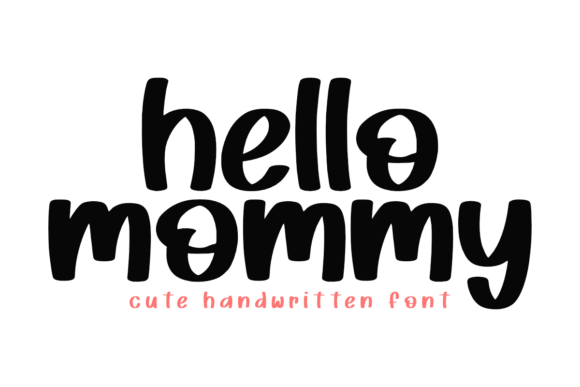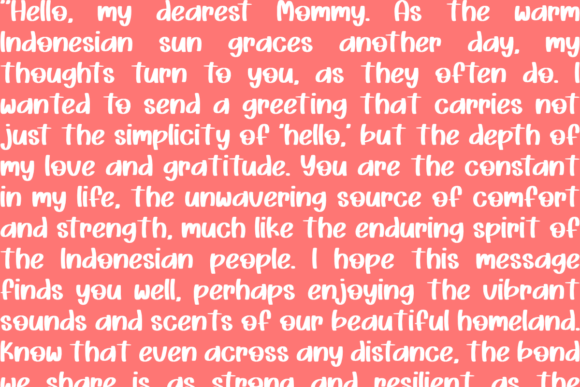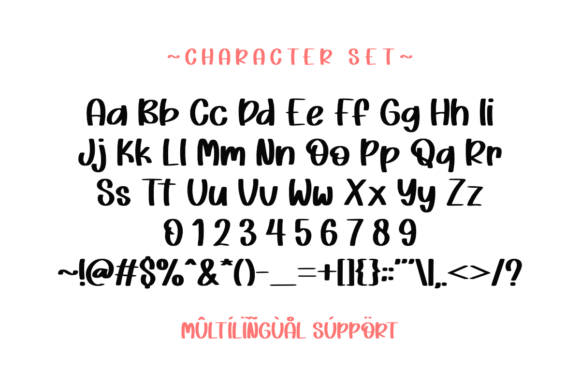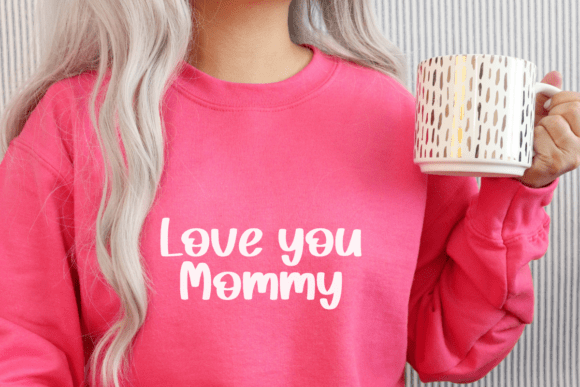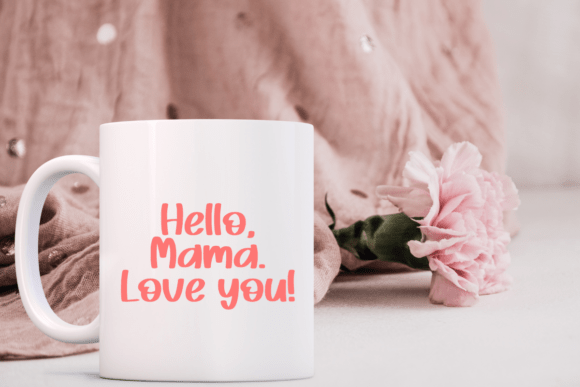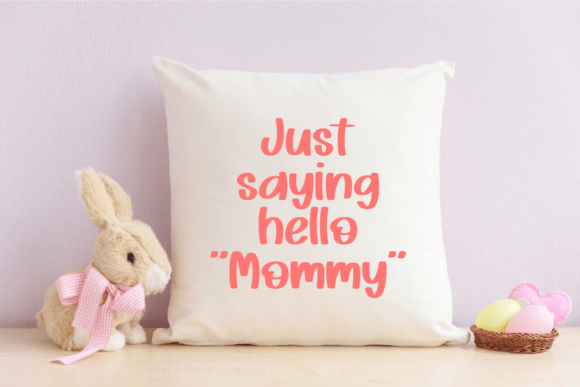
The Perfect Font to Express Your Love for Mom
Who hasn’t been there? You’re browsing through a font library, and suddenly, you stumble upon the perfect design that captures the essence of a special moment. For designers, it’s like finding a needle in a haystack – a discovery that can change the course of your project. That’s exactly what happened when I found the Hello Mommy Font. Its bold and lovable handwritten style immediately caught my attention, and I knew I had to share it with the world.
Hello Mommy Font is more than just a font – it’s a celebration of moms and all things cute. With its chunky curves and sweet style, it’s perfect for creating adorable designs that touch hearts. Whether you’re designing baby shower invites, mom blogs, or family-centered branding, this font is sure to make a lasting impression.
As a designer, you’ll appreciate the versatility of the Hello Mommy Font, which makes it a valuable addition to your font library. Its unique style and warmth can instantly elevate your designs and make them stand out from the crowd.
Hello Mommy Font Key Features
- Unique Characteristics: Hello Mommy Font features a playful, handwritten style with a mix of cursive and script elements, making it perfect for creating a personal and emotive feel in designs.
Hello Mommy Font Review
Overall, I think “Hello Mommy Font” is a solid choice for anyone looking for a fun, playful font. ✨ The unique blend of whimsical and modern elements makes it perfect for projects that need a bit of personality. I particularly enjoy how the font’s imperfections add to its charm.
Here are some specific things that work well:
- ✨ Unique style: The font’s blend of modern and vintage elements is a breath of fresh air in a world of generic sans-serifs.
- ✨ Versatility: Hello Mommy Font is suitable for a wide range of projects, from children’s books to advertising campaigns.
- ✨ Friendly feel: The font’s warm and approachable nature makes it perfect for projects that require a sense of comfort and familiarity.
- ⚠️ Limited legibility: In smaller sizes, the font can become difficult to read, which may limit its use in certain contexts.
- ⚠️ Limited scalability: The font may not be suitable for large-scale applications, such as billboards or posters.
Overall, I think “Hello Mommy Font” is a great choice for designers who want to add a bit of personality to their projects. While it may have some limitations, its unique style and versatility make it a solid addition to any font collection.
The Hello Mommy Font is ideal for:
- Baby shower invitations and decorations.
- Children’s birthday party graphics.
- Family photo albums and scrapbooks.